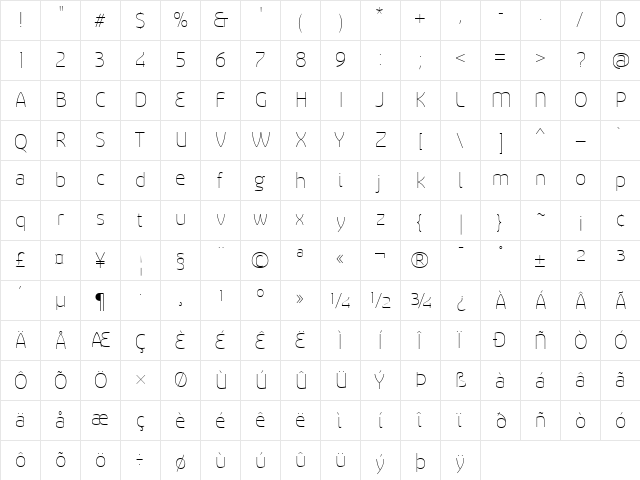
Sancoale Thin
Design Context for Sancoale Typeface
Sancoale is a composed and adaptable typeface that performs quietly and consistently across a wide range of design contexts. The delicate stroke weight brings airiness and refinement to layouts.